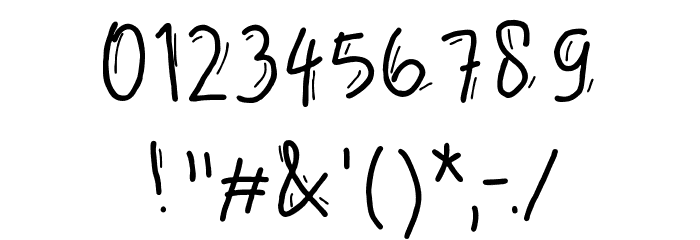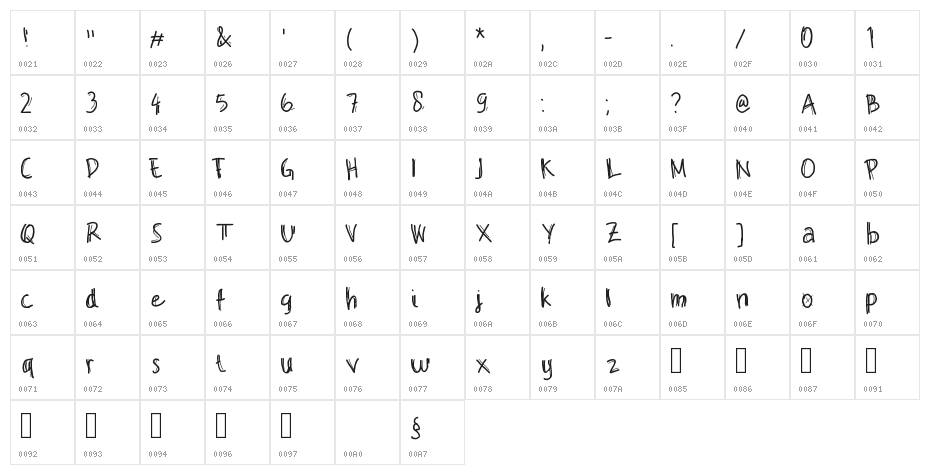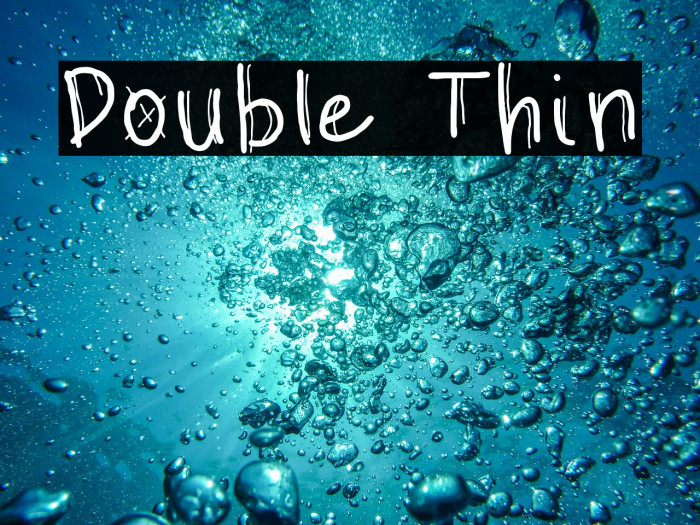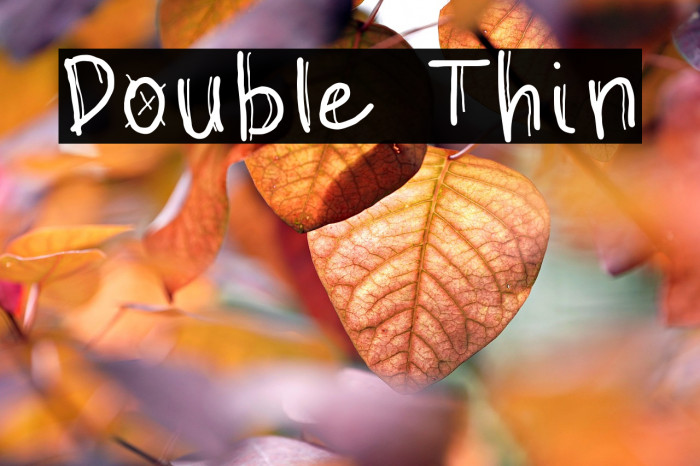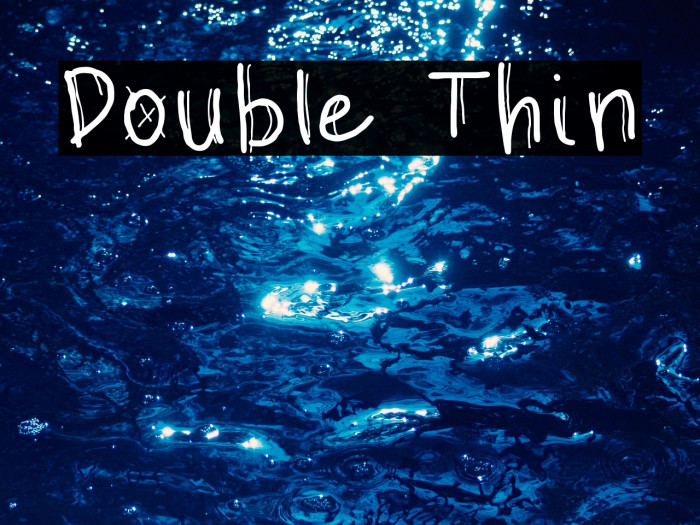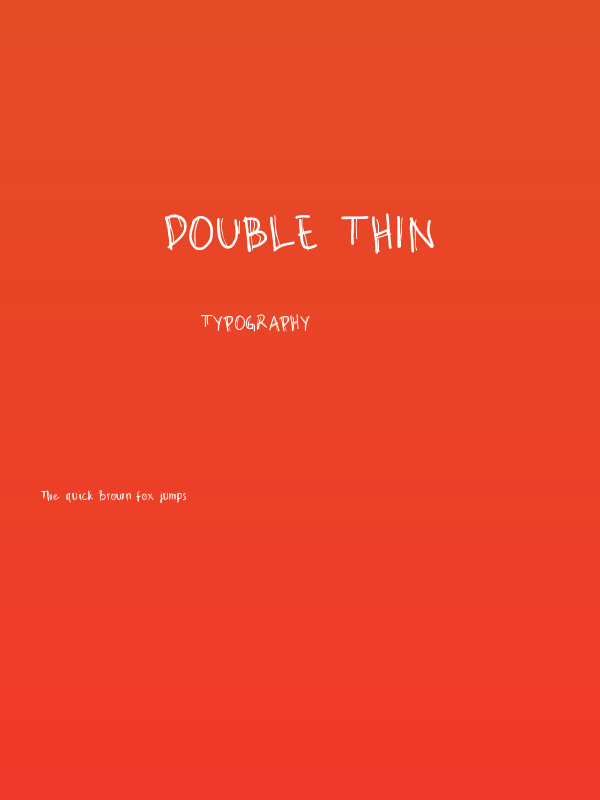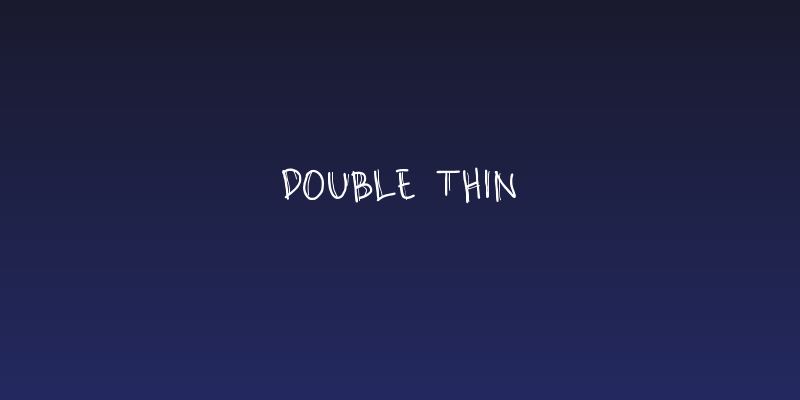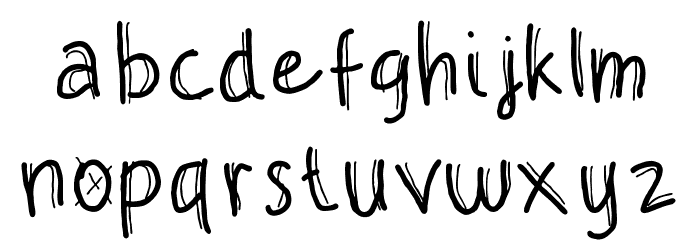
Double Thin Font
Double Thin Description
This font features a playful and casual handwritten style, characterized by its double-line strokes that give it a unique and dynamic appearance. The letters are slightly irregular, adding to the informal and approachable feel. The uppercase and lowercase letters maintain a consistent style, with rounded edges and a slight slant, enhancing the handwritten aesthetic. The numerals and special characters follow the same design principles, ensuring a cohesive look across all glyphs. This font is perfect for projects that require a personal touch, such as invitations, greeting cards, or creative branding.
| Proposed Projects | Ideal for invitations, greeting cards, personal branding, and creative projects. |